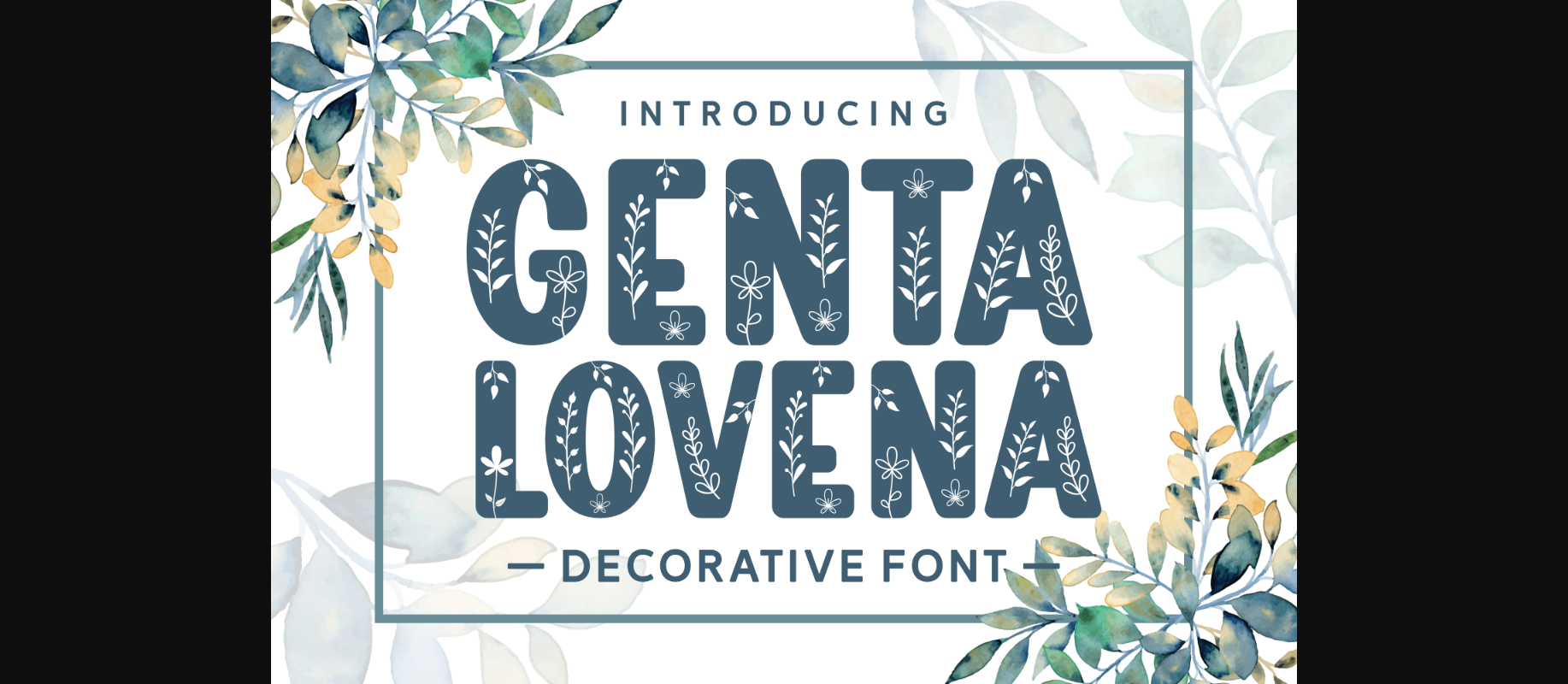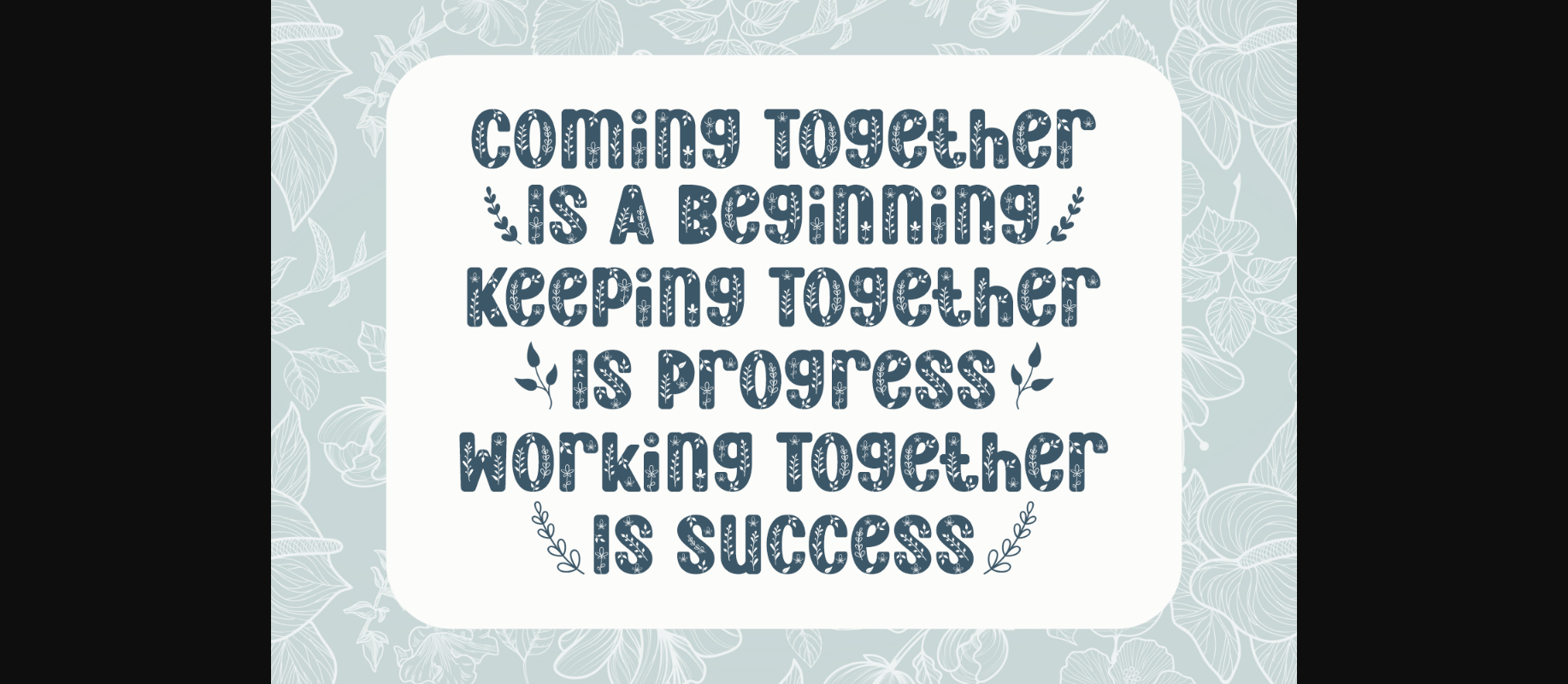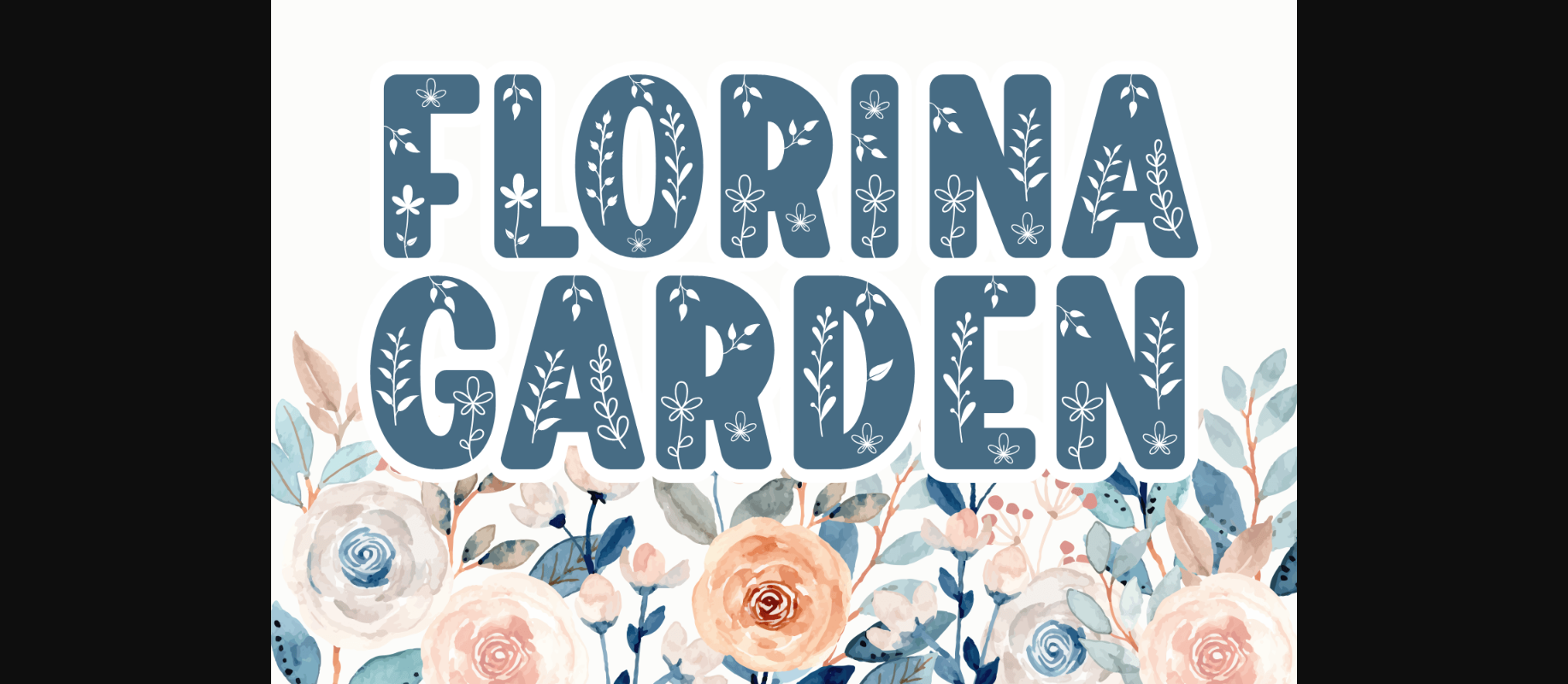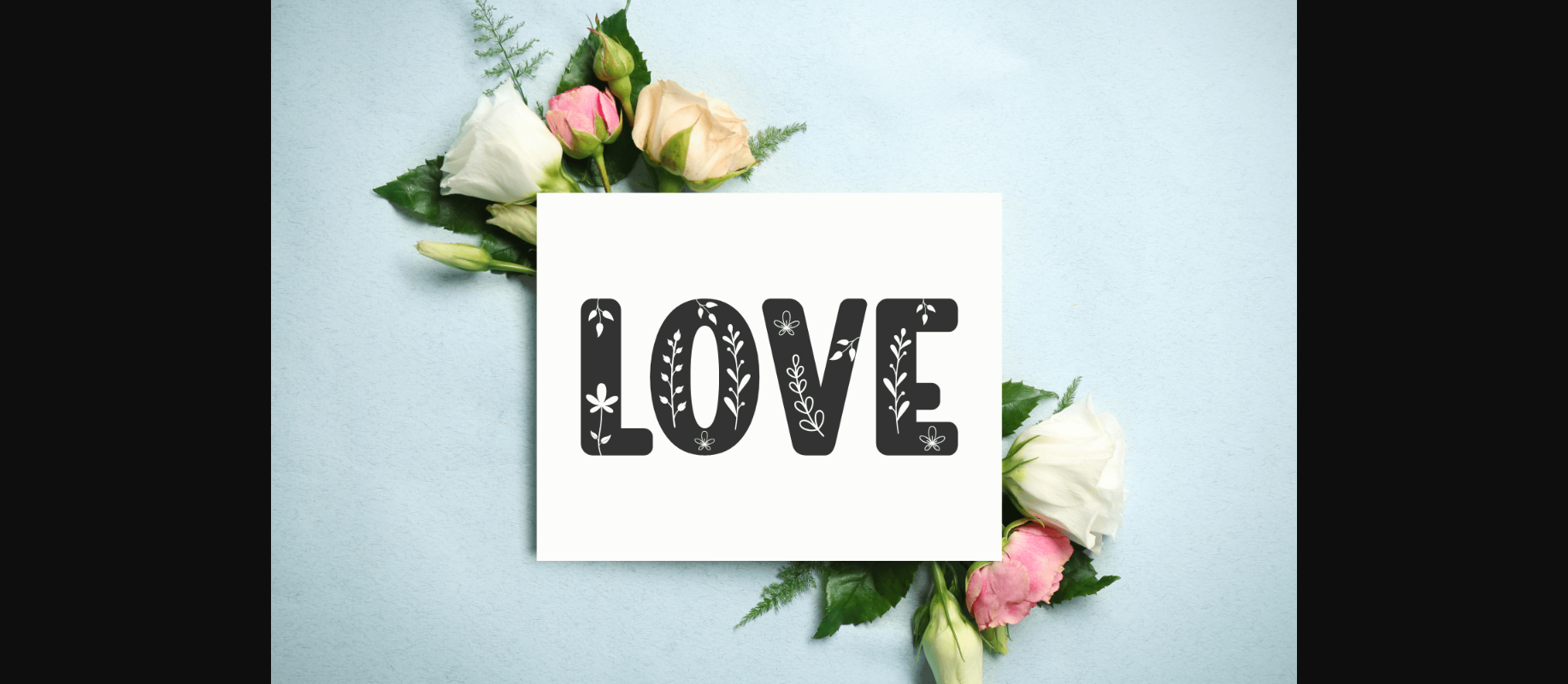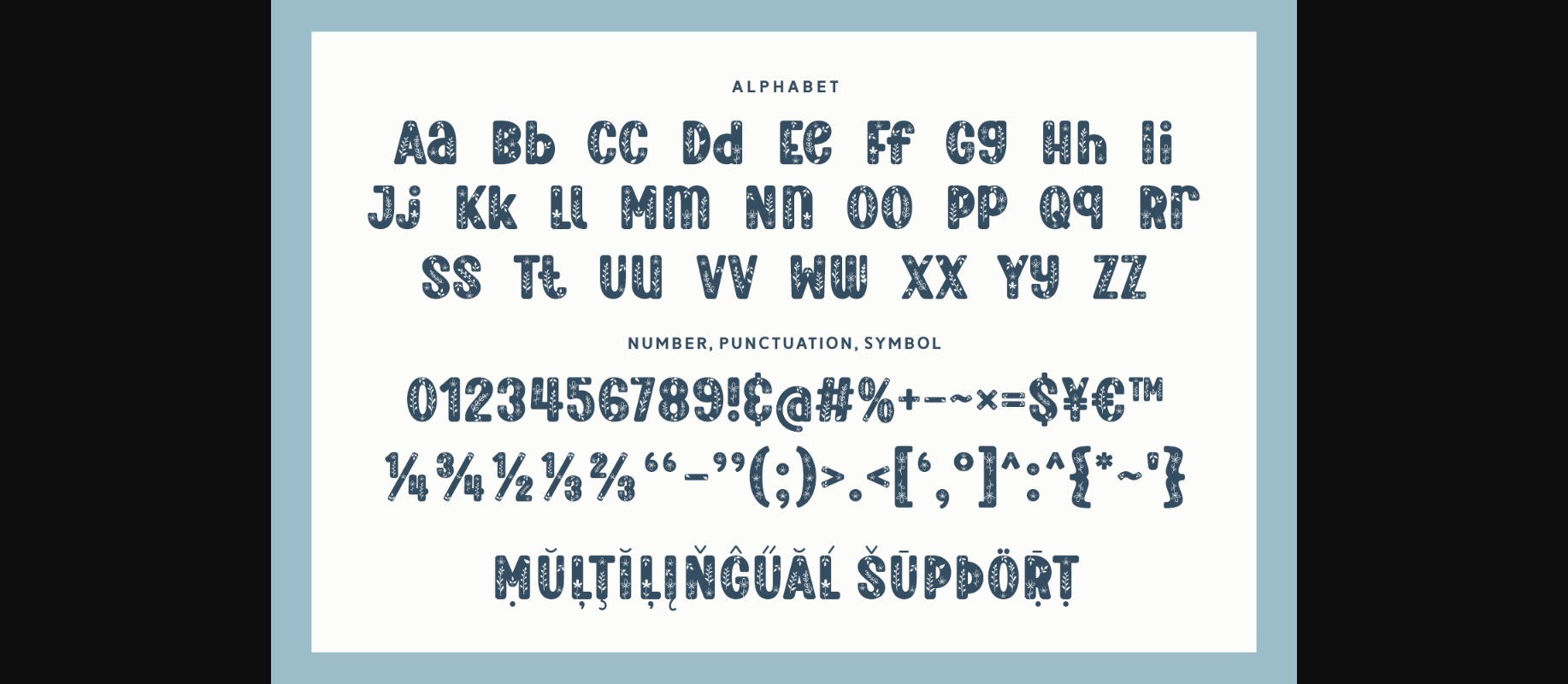
About Genta Lovena Font
Genta Lovena is a charming botanical-themed decorative font. Create stunning designs with this lovely floral font! These embellished characters are suitable for branding projects, fabric prints, crafts, digital typography, and more.